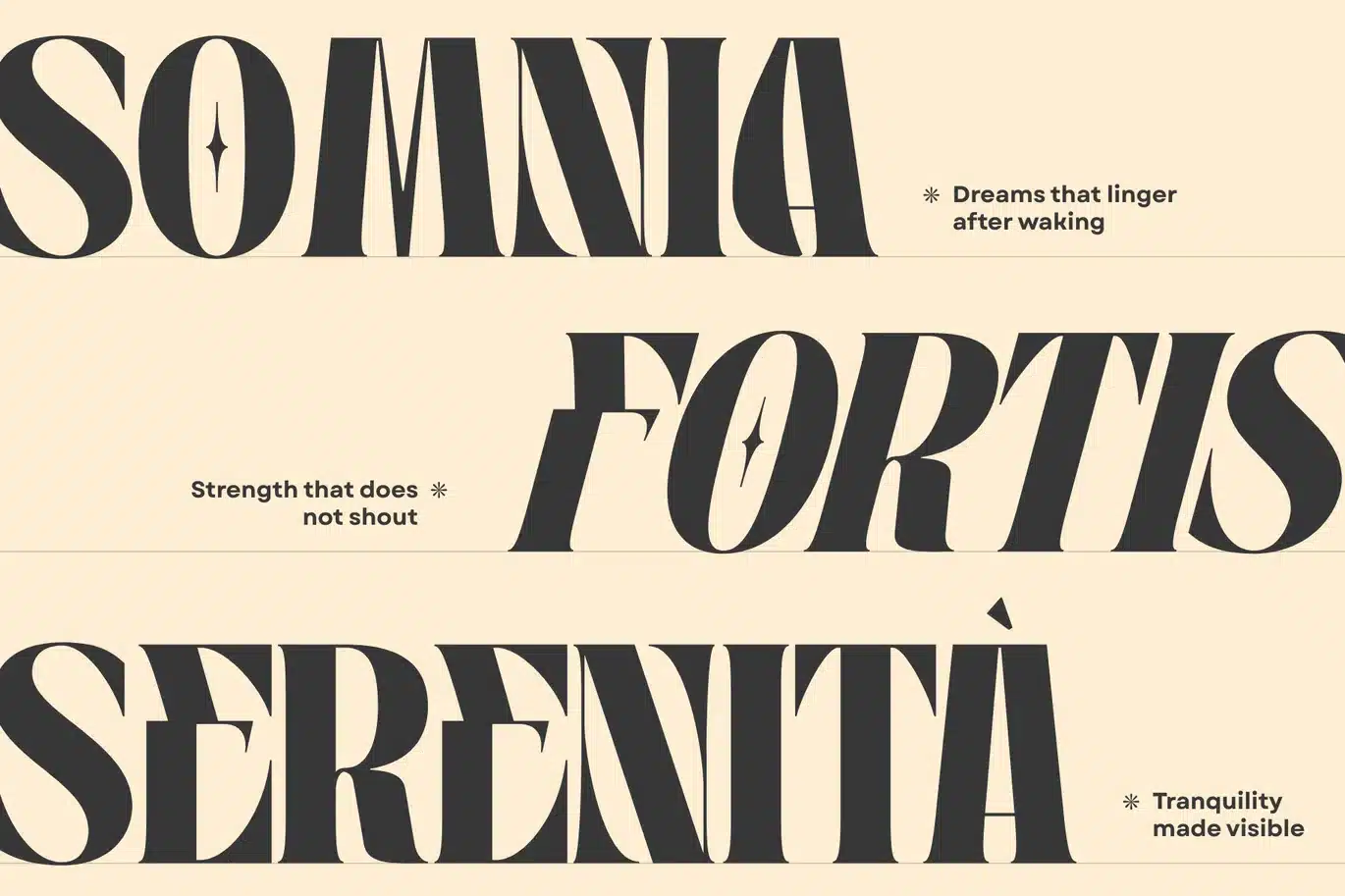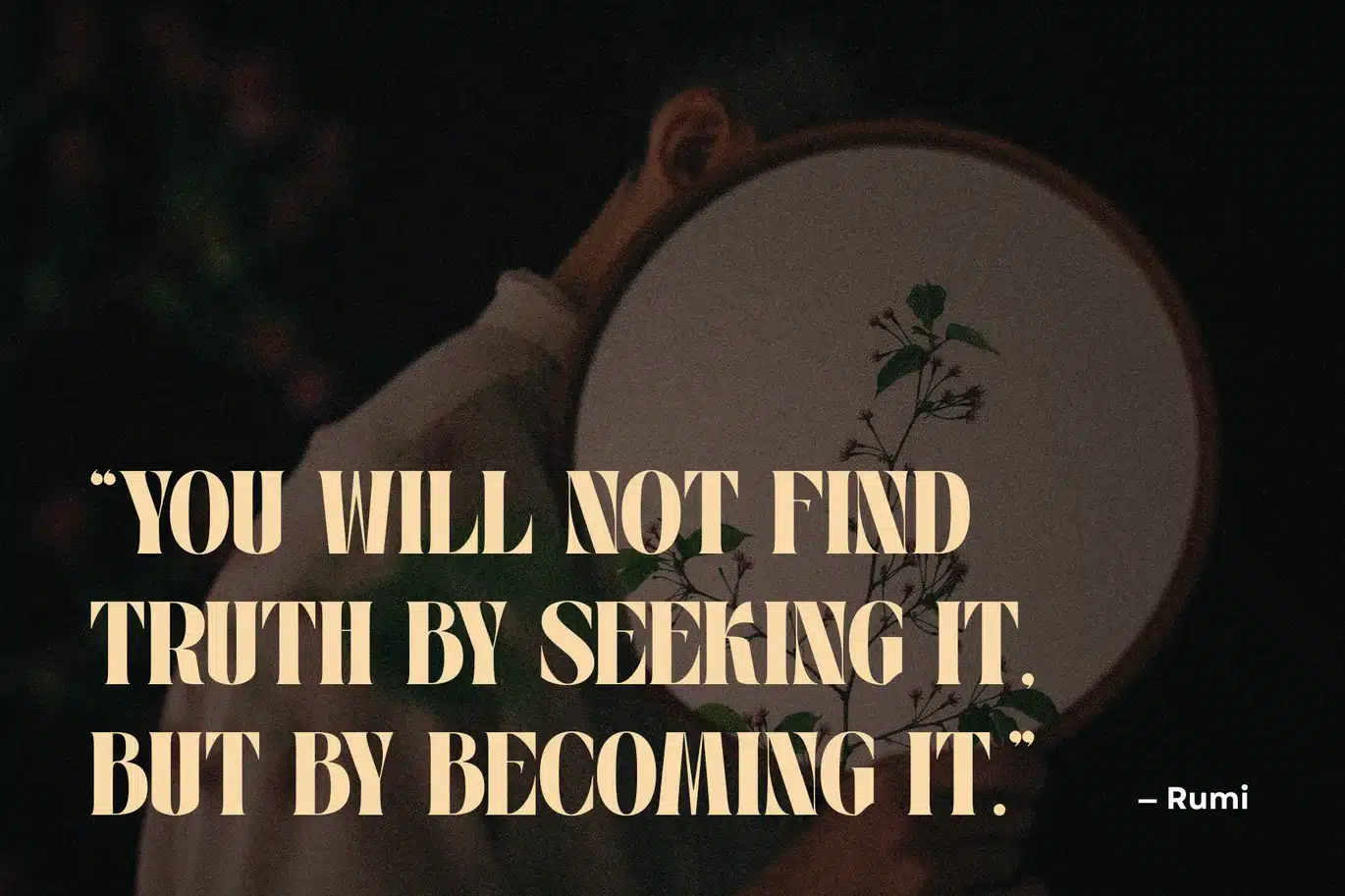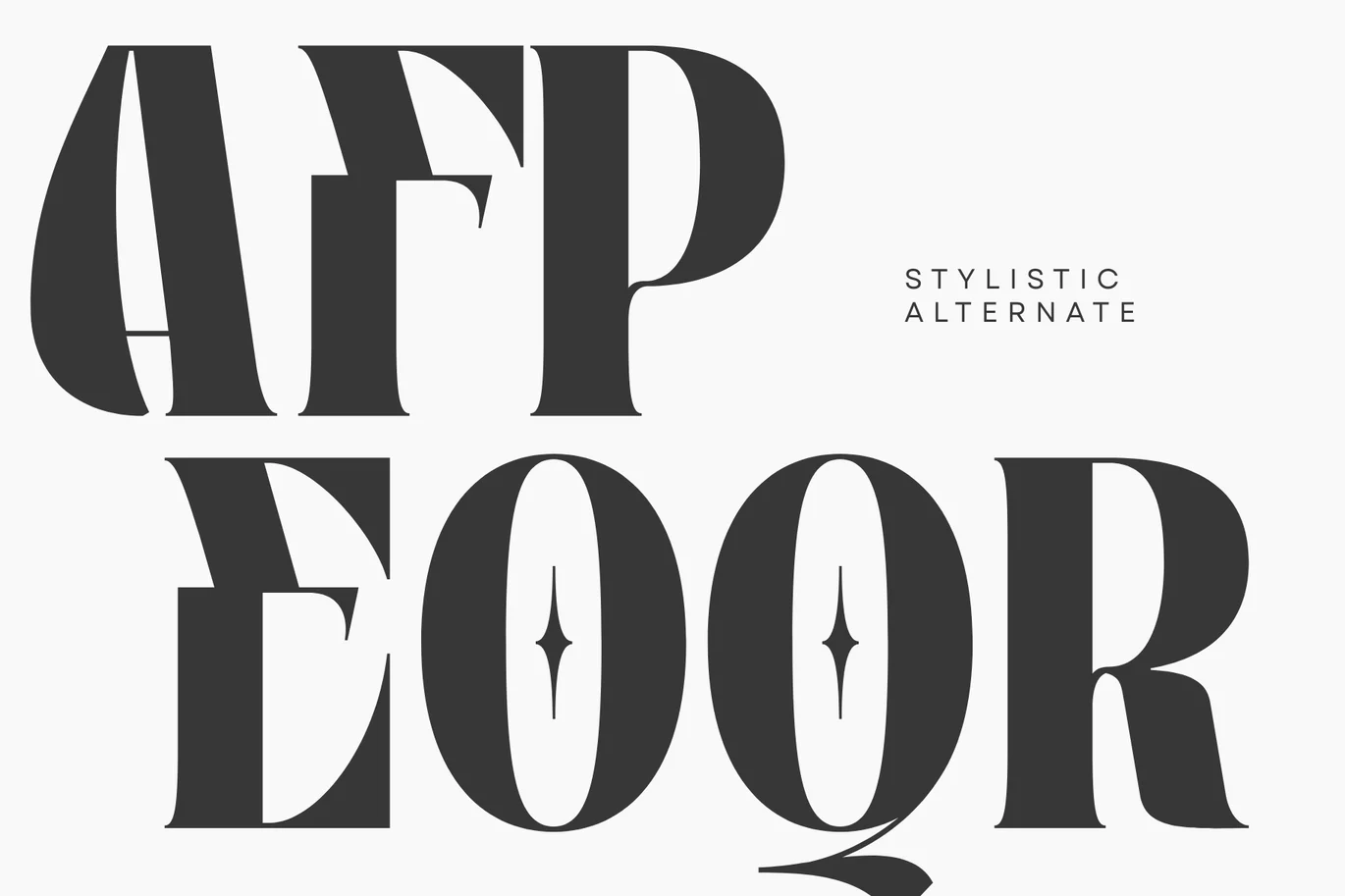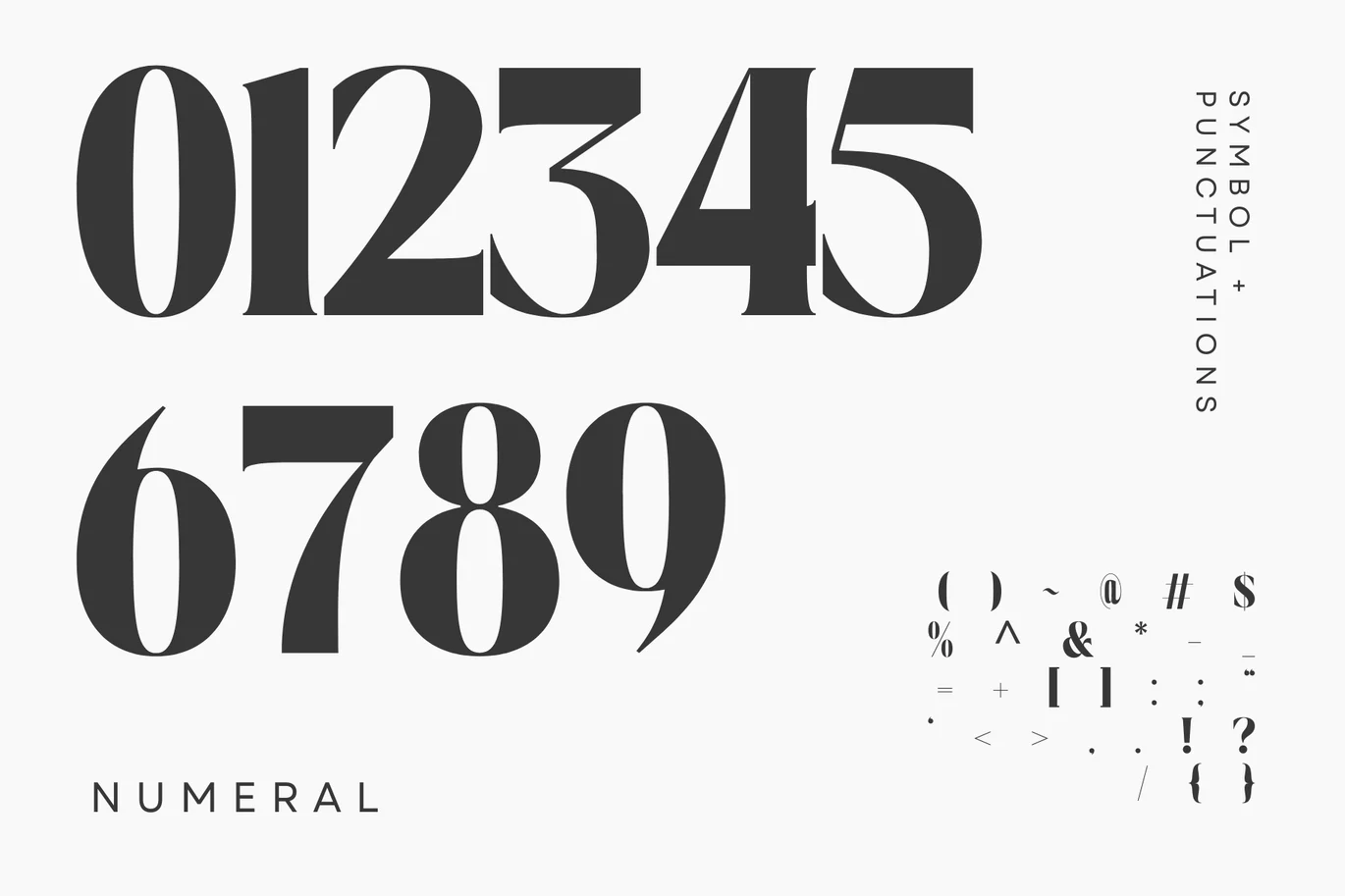
Logo Font Branding – Quelia Vintage
Quelia Vintage offers beautiful typographic harmony for a diversity of design projects, including logos & branding, social media posts, advertisements & product designs.